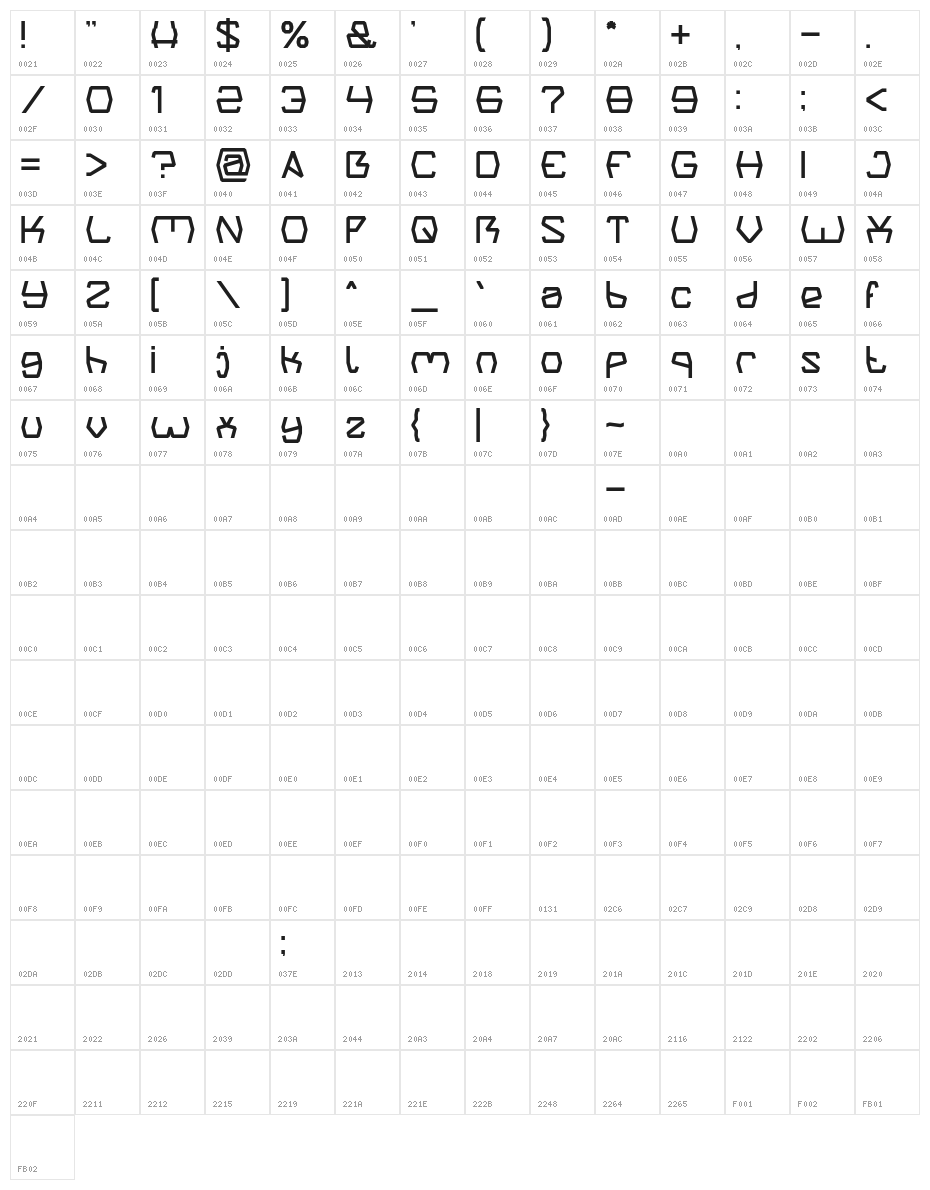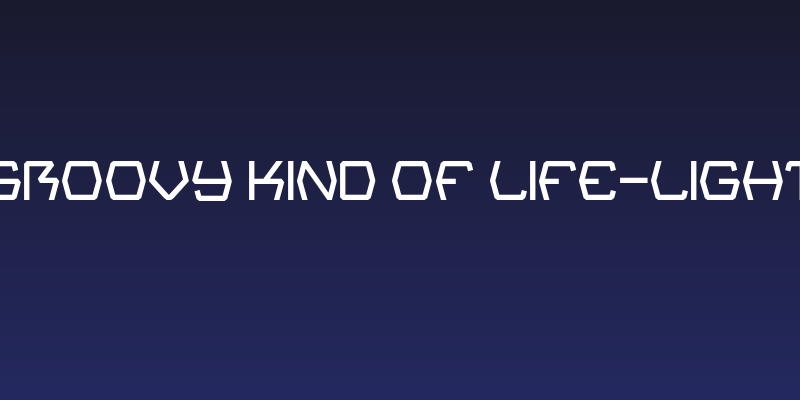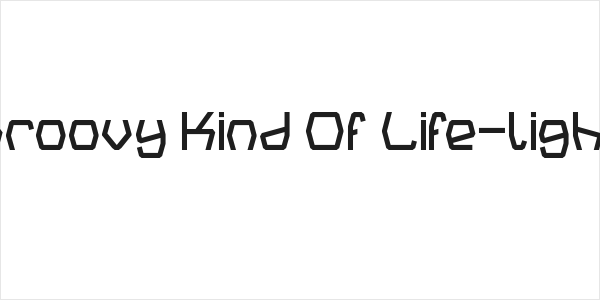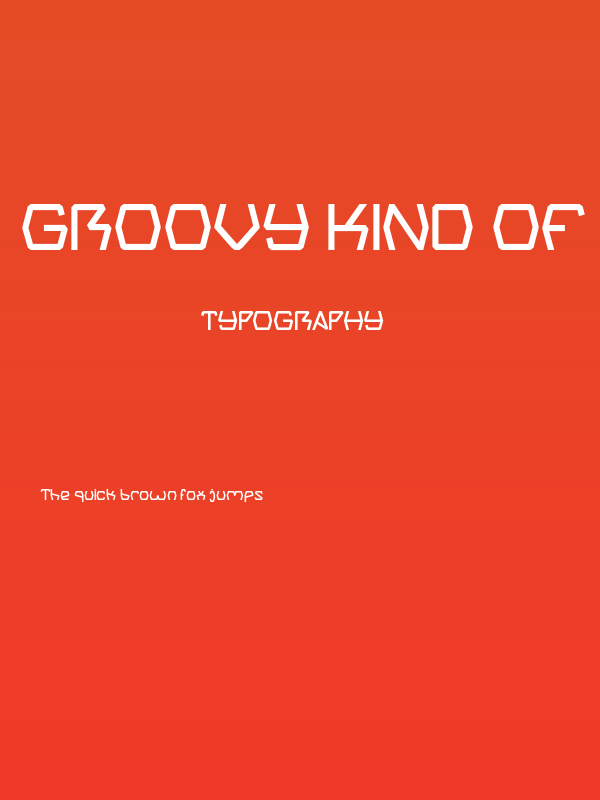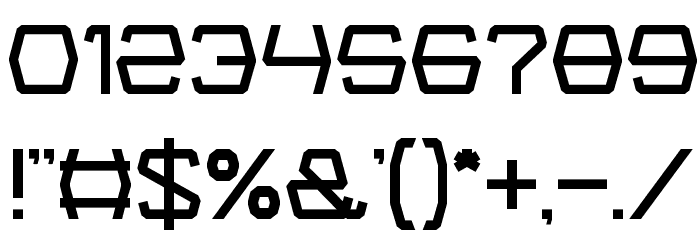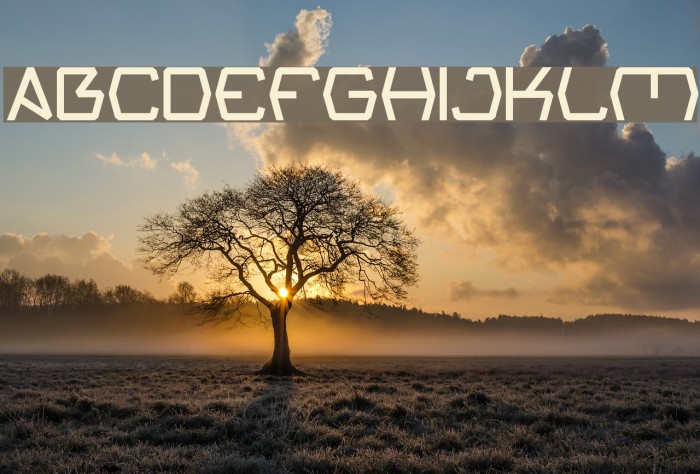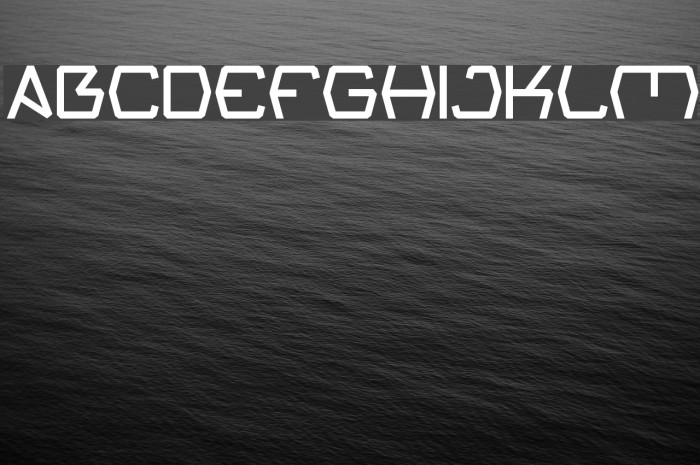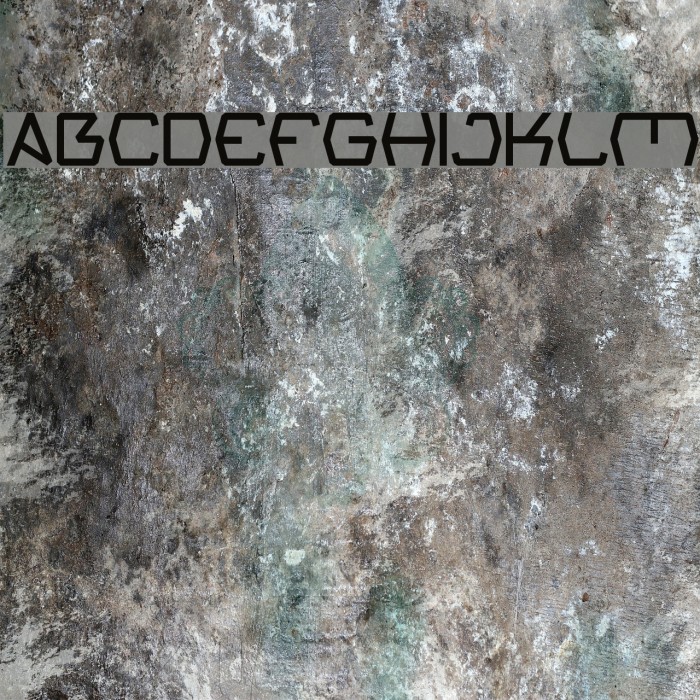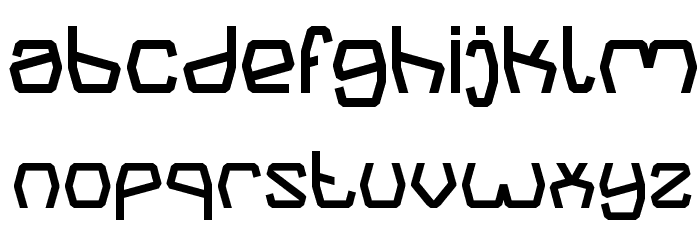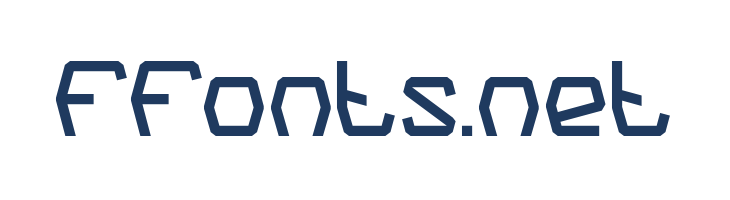
Groovy Kind Of Life-light Font
This font features a unique, geometric design with angular and edgy letterforms. Each character is crafted with a distinct, modern flair, combining sharp angles and a slightly futuristic aesthetic. The uppercase and lowercase letters maintain a consistent style, with a bold presence that stands out. Numbers and special characters follow the same design principles, ensuring a cohesive look across all glyphs. The font's style is both eye-catching and versatile, making it suitable for a variety of creative applications.
| Proposed Projects | Ideal for branding, posters, album covers, and digital artwork that requires a modern and distinctive look. |